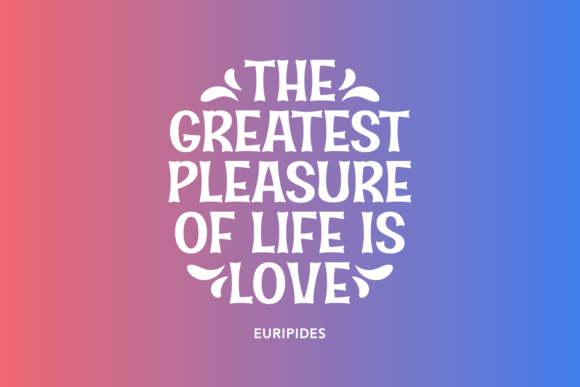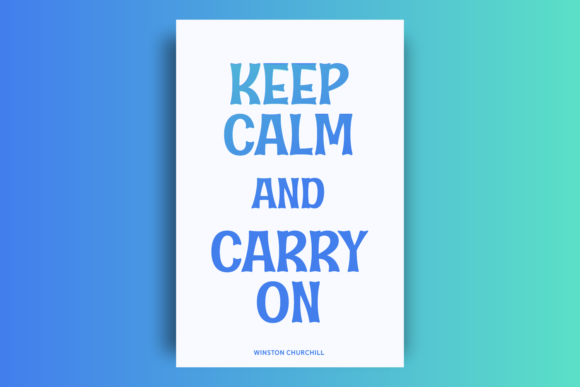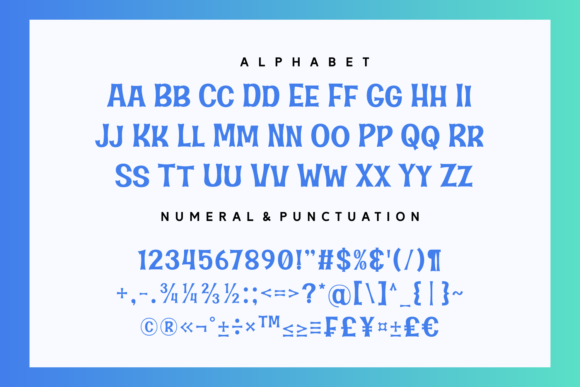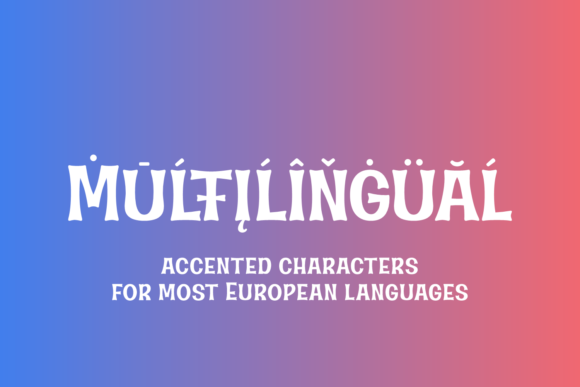
Introduction to Pake Font
Have you ever been in the midst of a creative project, staring at a blank canvas, searching for the perfect font to bring your vision to life? That’s exactly where I was when I stumbled upon the Pake Font – a game-changer for designers and creatives alike. This high-quality display font is not just another addition to your design resource library, but a powerful tool that can elevate your work and make it stand out from the crowd.
| 📌 Product Name | Pake Font |
| 👤 Author | Rizkky (7NTypes) |
With its cool and assertive vibe, the Pake Font is perfect for designers who want to add a distinct touch to their creative projects. Its uniquely shaped letters are sure to grab attention, making it an excellent choice for branding, advertising, and even digital art. And the best part? You can download the Pake Font for free, making it an accessible design resource for everyone.
Pake Font: A High-Quality Design Resource
- Unique, modern design with a minimalist aesthetic, perfect for contemporary creative projects
- High-quality design, suitable for a variety of applications, including digital and print media
Honest Review: Pake Font
I recently stumbled upon the Pake Font while searching for high-quality design resources to enhance my creative project. As a designer, I appreciate fonts that not only look great but also offer flexibility and versatility.
One of the things that stands out about the Pake Font is its sleek and modern aesthetic. The font is perfect for creating a professional and sophisticated look for any design project. ✨ I particularly love how the Pake Font includes a transparent background, making it easy to layer and combine with other design elements.
Here are some of the key features that I like about the Pake Font:
- High-quality design that looks great in a variety of contexts
- Transparent background for easy layering and combination with other design elements
However, there are a few limitations to keep in mind: ⚠️ the Pake Font may not be suitable for projects that require a bold or dramatic font. Additionally, the font may not be available in as many languages as some other fonts on the market.
Overall, I’m impressed with the Pake Font and would highly recommend it to designers looking for a high-quality, free design resource for their creative projects.
Pake Font